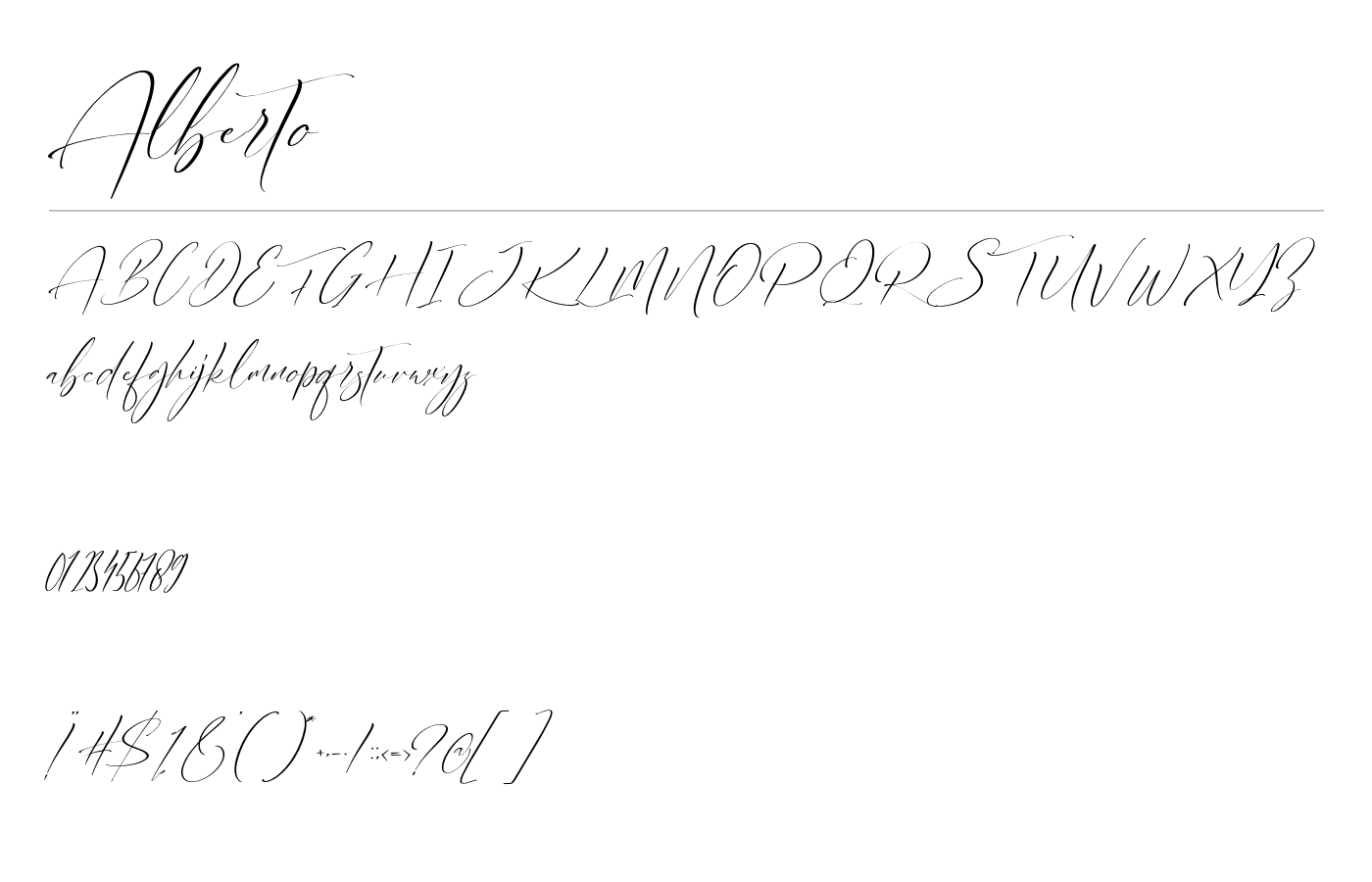
Alberto is an elegant, delicate script font featuring thin, flowing strokes with high contrast and graceful, calligraphic flair. Its refined style and airy spacing make it perfect for sophisticated branding, wedding invitations, and luxury packaging where a stylish, personal touch is desired. This font brings a sense of elegance and modern romance, ideal for headlines and decorative use rather than body text.
Alberto Font